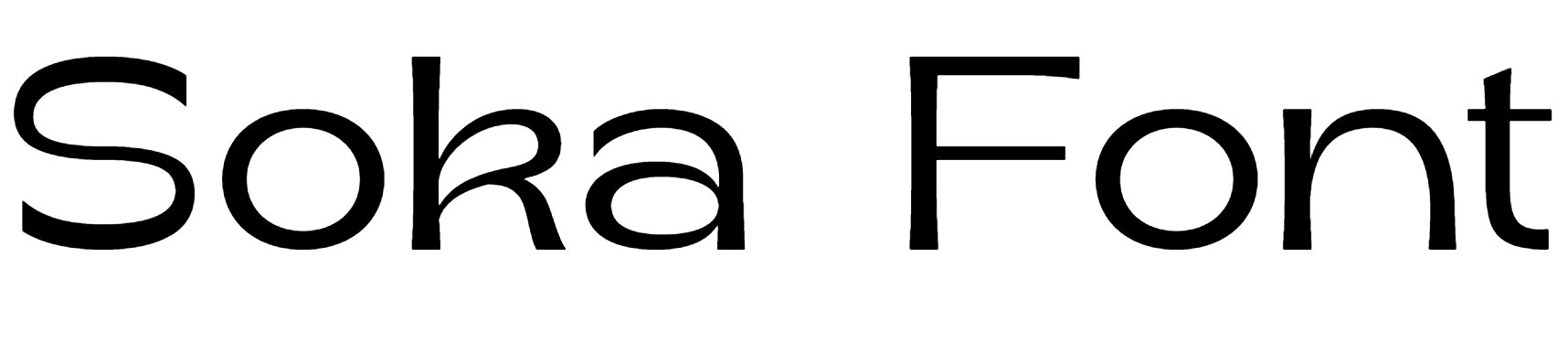
Soka
Soka is a fancy font designed by I Made Dwi Putra Yoga and published by Alitdesign (2022). It's a decorative display font with plenty of personality, made to grab attention. You get three styles in one free ZIP, and the preview above lets you test each one before you download.
What You Can Type With Soka
You get every letter from A to Z in both cases and all the numbers from 0 to 9, which means Soka can handle full sentences, dates and prices. Common punctuation such as &, !, ? and @ is included as well. It doesn't include accented letters such as é or ñ, which makes it an English-only font.
Where Soka Works Best
Designers usually reach for fonts like Soka when they're making posters, logos and eye-catching headlines. Use it for one standout word or headline and let simpler fonts handle the rest. Because the family has more than one style, you can mix them in a single design for headings, subheadings and highlights.
Does Soka support accented letters?
No. Soka has no accented letters such as é, ñ or ü, so it's best for English text.